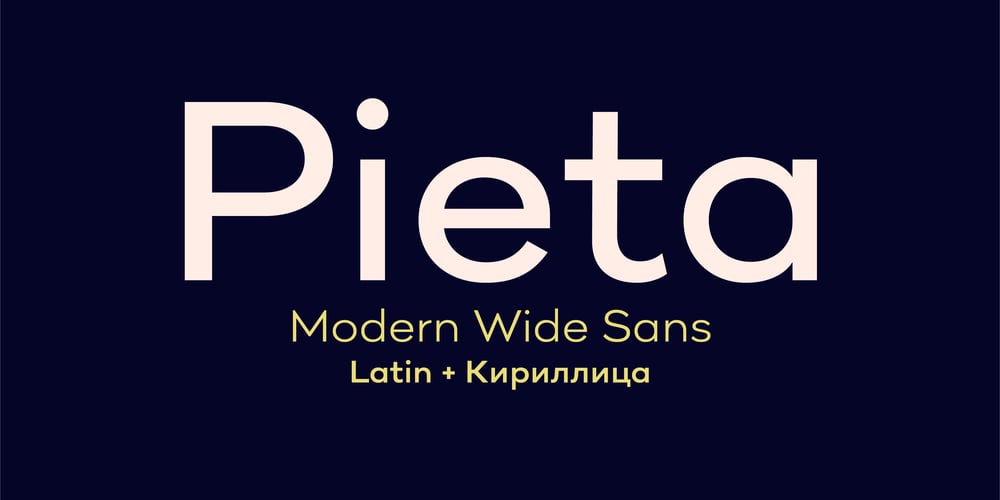
Pieta Font Family was designed by Nico Inosanto and published by Type Dynamic. Pieta contains 14 styles and family package options. Pieta is a wide sans type family inspired by old typeface lettering from Netherlands, with a more contemporary design. The Pieta family includes 7 weights, from Hairline to Black, with their corresponding italics. Each font includes OpenType Features such as Proportional Figure, Tabular Figures, Numerator, Superscript, Denominators, Scientific Inferiors, Subscript, Ordinals, Ligatures and Fractions.Pieta family supports Latin and Cyrillic, all these languages are covered:Latin language support:Afar, Afrikaans, Albanian, Asturian, Azeri, Basque, Bosnian, Breton, Bulgarian, Catalan, Cornish, Corsican, Croatian, Czech, Danish, Dutch, English, Esperanto, Estonian, Faroese, Filipino, Finnish, Flemish, French, Frisian, Friulian, Gaelic, Galician, German, Greenlandic, Hungarian, Icelandic, Indonesian, Irish, Italian, Kurdish, Latin, Latvian, Lithuanian, Luxembourgish, Malagasy, Malay, Maltese, Maori, Moldavian, Norwegian, Occitan, Polish, Portuguese, Provençal, Romanian, Romansch, Saami, Samoan, Scots, Scottish, Serbian, Slovak, Slovenian, Spanish, Swahili, Swedish, Tagalog, Turkish, Walloon, Welsh, WolofCyrillic language support:Adyghe, Avar, Belarusian, Bulgarian, Buryat, Chechen, Erzya, Ingush, Kabardian, Kalmyk, Karachay-Balkar, Karakalpak, Kazakh, Komi, Kyrgyz, Lak, Macedonian, Moldovan, Mongol, Permyak, Russian, Rusyn, Serbian, Tatar, Tofa, Tuvan, Ukrainian, Uzbek